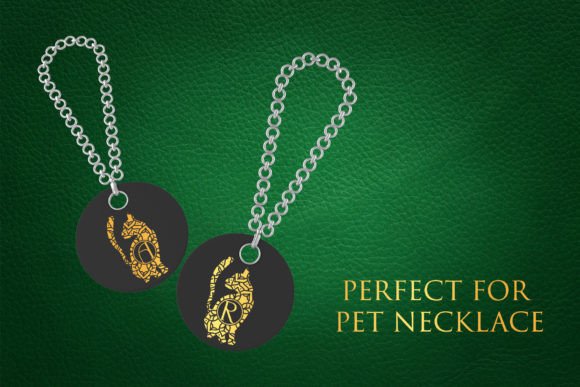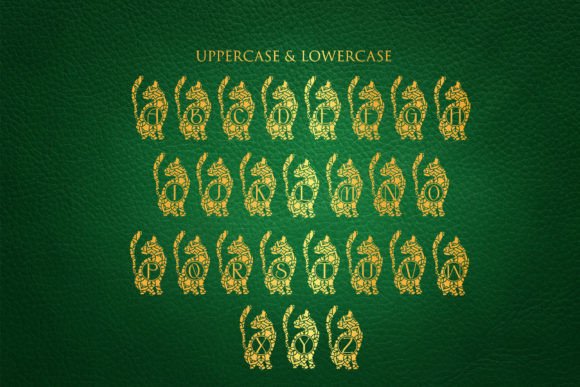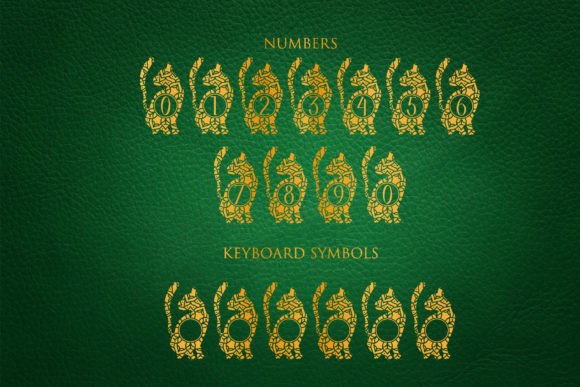
Happy Cat Mandala Monogram Font: The Purrfect Addition to Your Feline-Inspired Creations
Are you a cat lover and a creative enthusiast? Look no further! The Happy Cat Mandala Monogram Font is here to take your designs to the next level. This delightful decorative typeface is specifically crafted for cat aficionados, and it’s about to become your new favorite go-to font for all your feline-inspired projects.
What Makes Happy Cat Mandala Monogram Font So Special?
The Happy Cat Mandala Monogram Font is more than just a font – it’s an experience. Imagine a world where adorable cat illustrations, intricate mandalas, and elegant monograms come together in perfect harmony. This font is designed to capture the whimsical and playful essence of our feline friends, making it the ultimate addition to any cat-themed creative project.
Whether you’re a designer, crafter, or DIY enthusiast, this font is sure to inspire your next project. From custom cat-themed invitations and party decorations to social media graphics and blog posts, the Happy Cat Mandala Monogram Font is the purrfect choice for anyone looking to add a touch of feline charm to their designs.
Key Features of Happy Cat Mandala Monogram Font
- Unique Cat-Themed Illustrations: The font features adorable cat illustrations, each one carefully crafted to showcase the playful and affectionate nature of our feline friends.
- Intricate Mandala Designs: The mandalas in this font are intricately designed, adding an extra layer of visual interest and beauty to your designs.
- Elegant Monograms: The monograms in this font are elegant and sophisticated, making them perfect for customizing your designs with a personal touch.
How to Use Happy Cat Mandala Monogram Font in Your Designs
The Happy Cat Mandala Monogram Font is versatile and can be used in a variety of design projects, including:
- Digital Designs: Use the font in your digital designs, such as social media graphics, blog posts, and email newsletters.
- Print Designs: The font is perfect for print designs, including custom invitations, party decorations, and business cards.
- Crafting Projects: Add a personal touch to your crafting projects, such as scrapbooking, card making, and DIY home decor.
Why Designers and Crafters Love Happy Cat Mandala Monogram Font
The Happy Cat Mandala Monogram Font has quickly become a favorite among designers and crafters, and for good reason. Here are just a few reasons why:
- Unique and Eye-Catching: The font is unlike anything you’ve seen before, making it a great way to add some personality to your designs.
- Customization Options: The font offers a range of customization options, allowing you to tailor your designs to your specific needs.
Whether you’re a seasoned designer or a crafting novice, this font is sure to bring a smile to your face and a touch of feline charm to your creations. So go ahead, get creative, and show the world your love for cats with the Happy Cat Mandala Monogram Font!